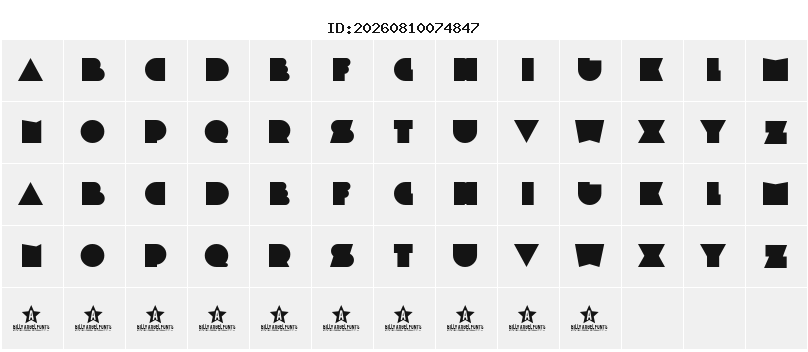
• Font Name: PLASTIC PILL
• Designer: Billy Argel
About PLASTIC PILL.ttf
PLASTIC PILL.ttf is a modern, elegant sans-serif font designed for ultimate readability and visual harmony. Perfect for branding, headlines, web design, and print materials.